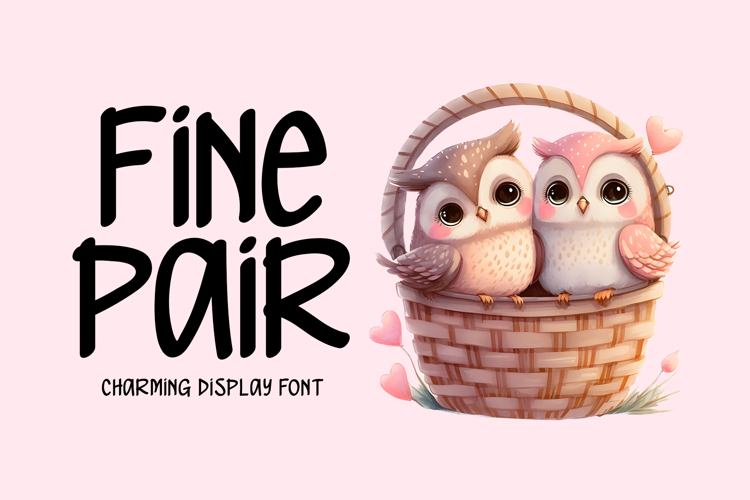
Introducing Fine Pair!
Fine Pair is an attractive display typeface with a warm and approachable style. Its versatile design works smoothly across both print and digital formats, making it ideal for logos, apparel, music covers, photo frames, social media visuals, and promotional layouts. With its simple yet expressive look, Fine Pair helps your message stand out clearly and beautifully.